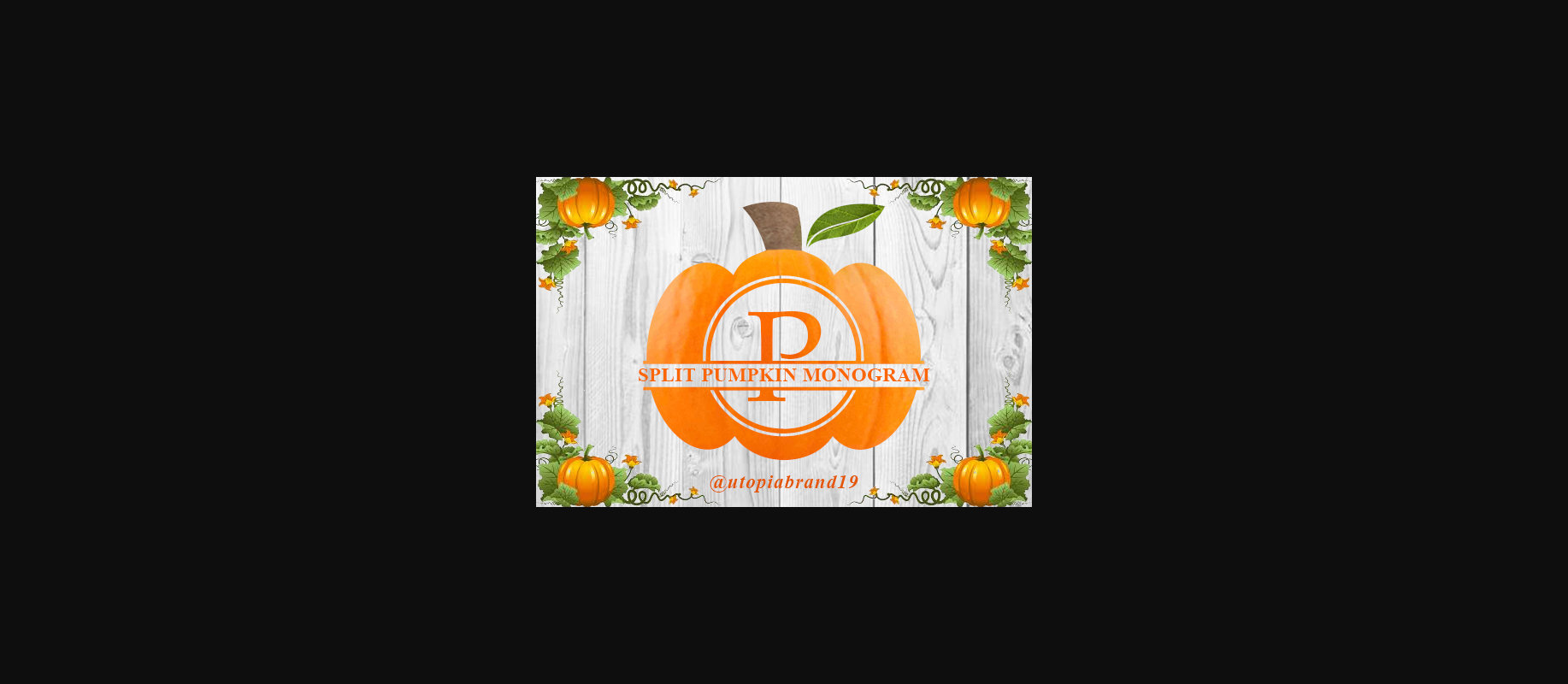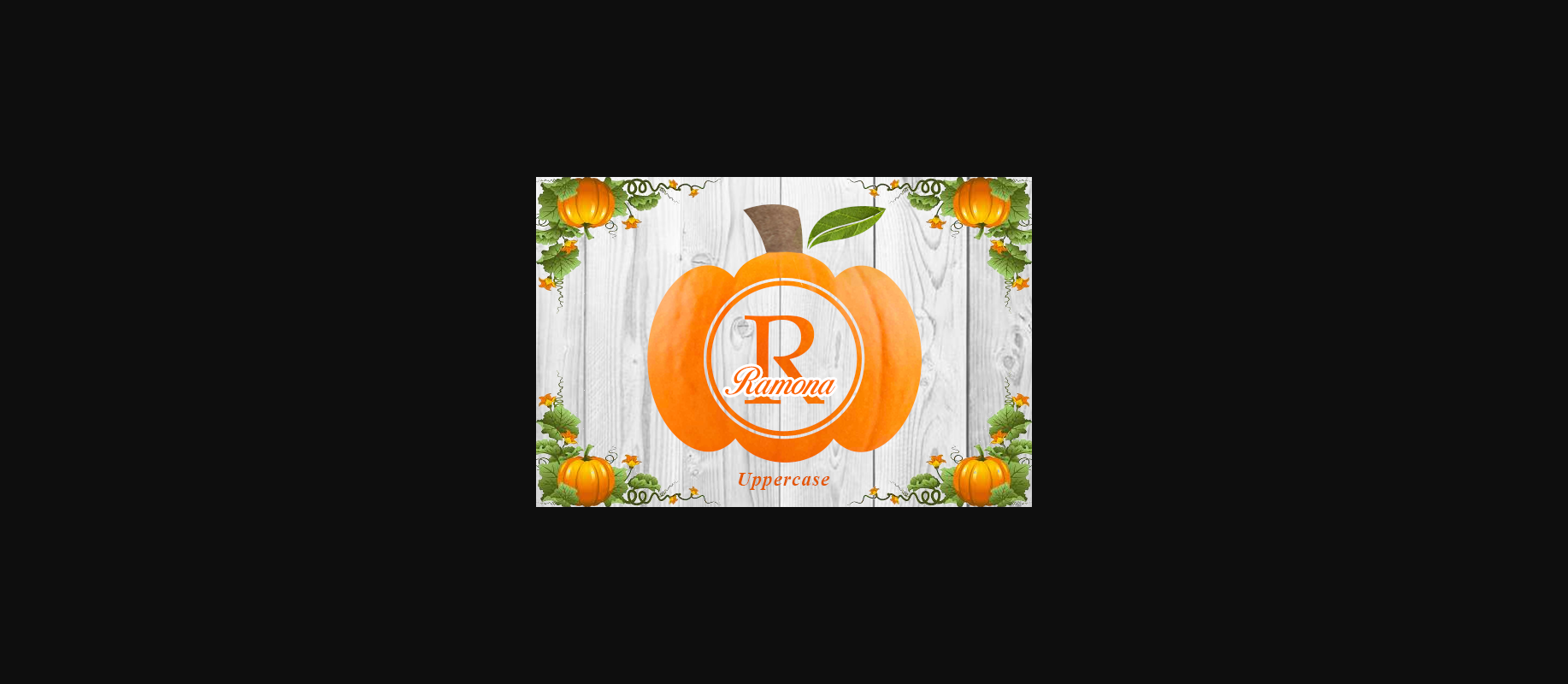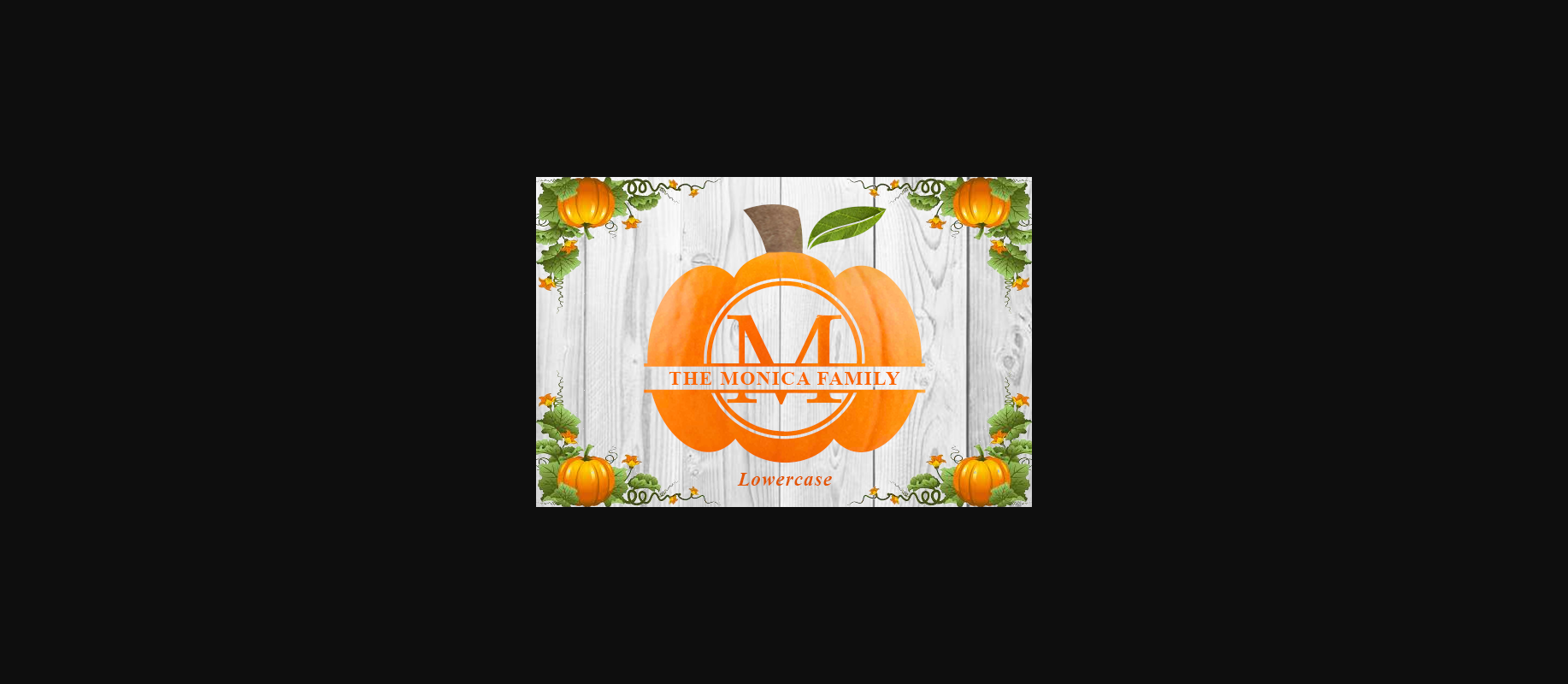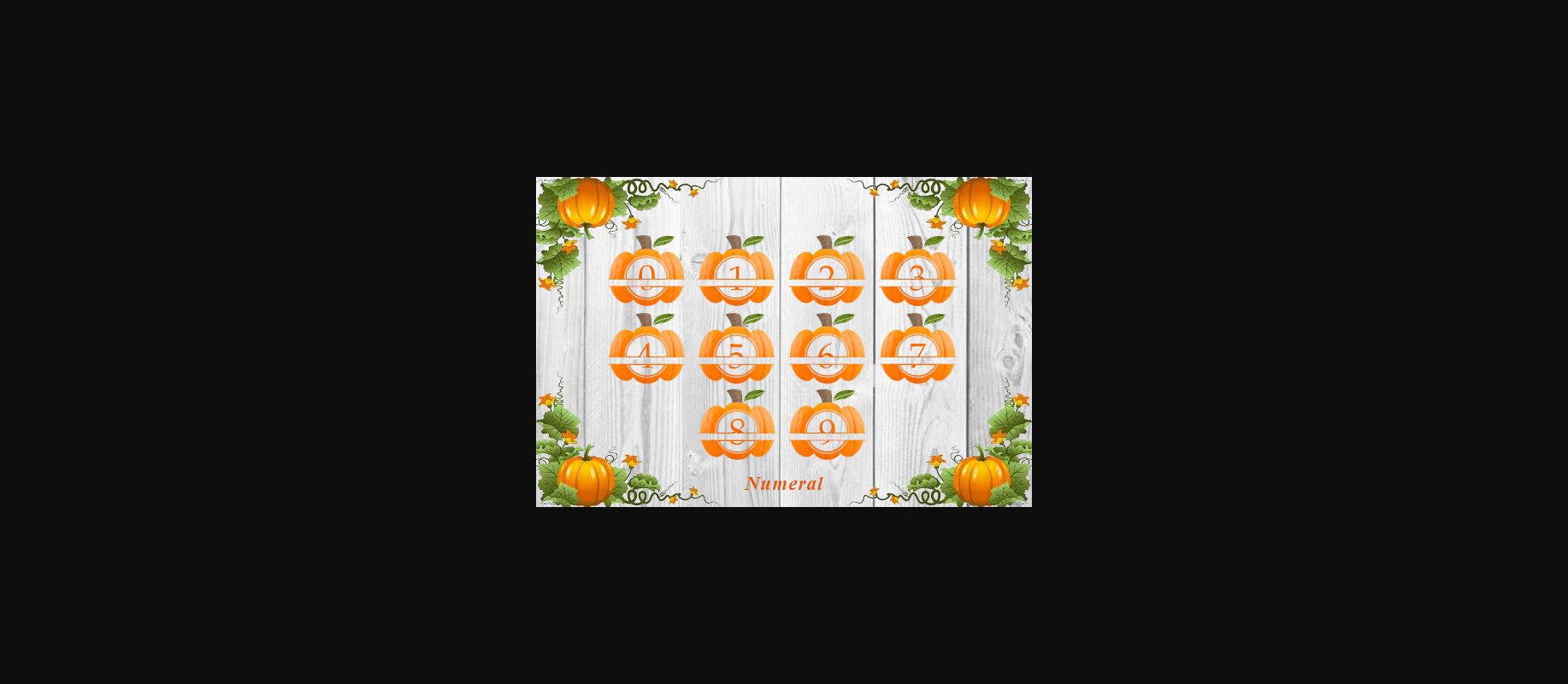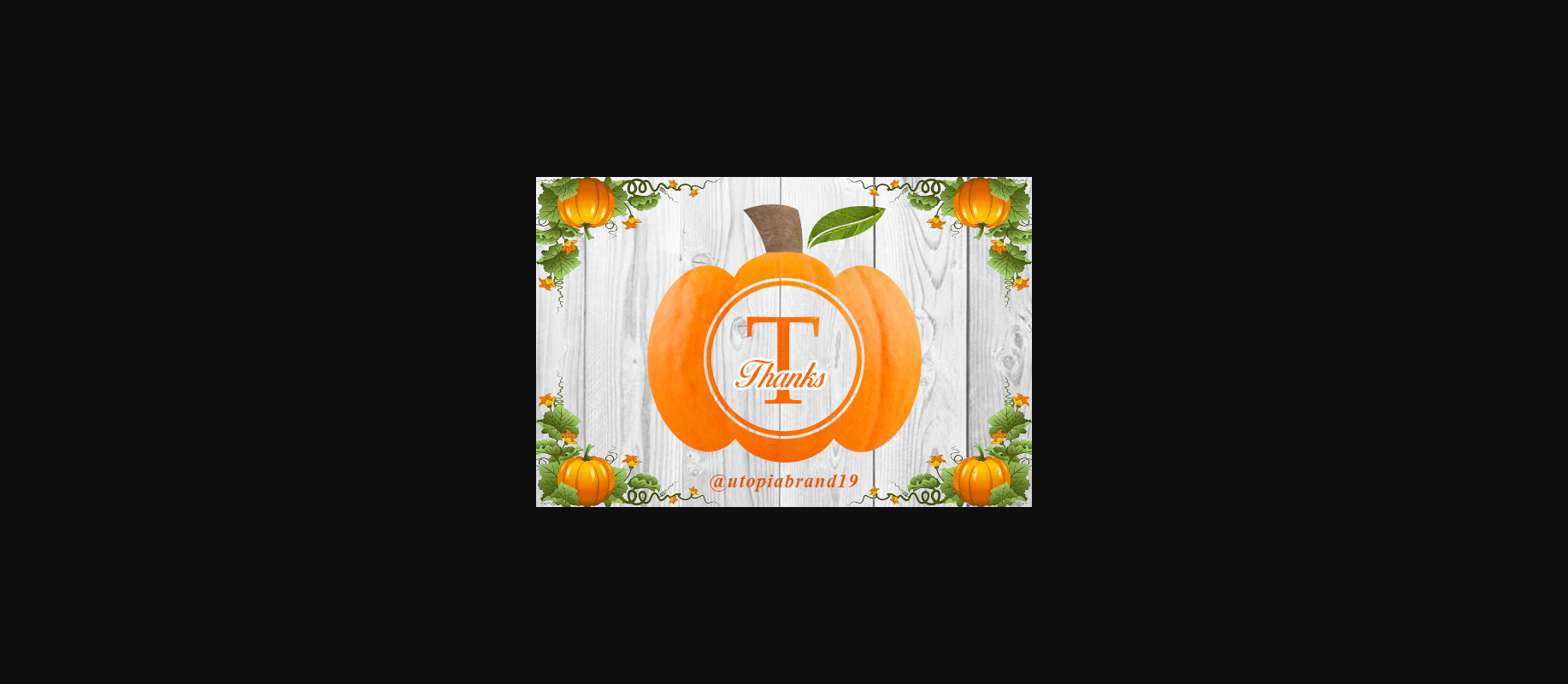
About Split Pumpkin Monogram Font
Split Pumpkin Monogram is a fun and spooky decorative font, featuring charming ornaments. Fall in love with its genuine feel and use it to create ravishing Thanksgiving designs.